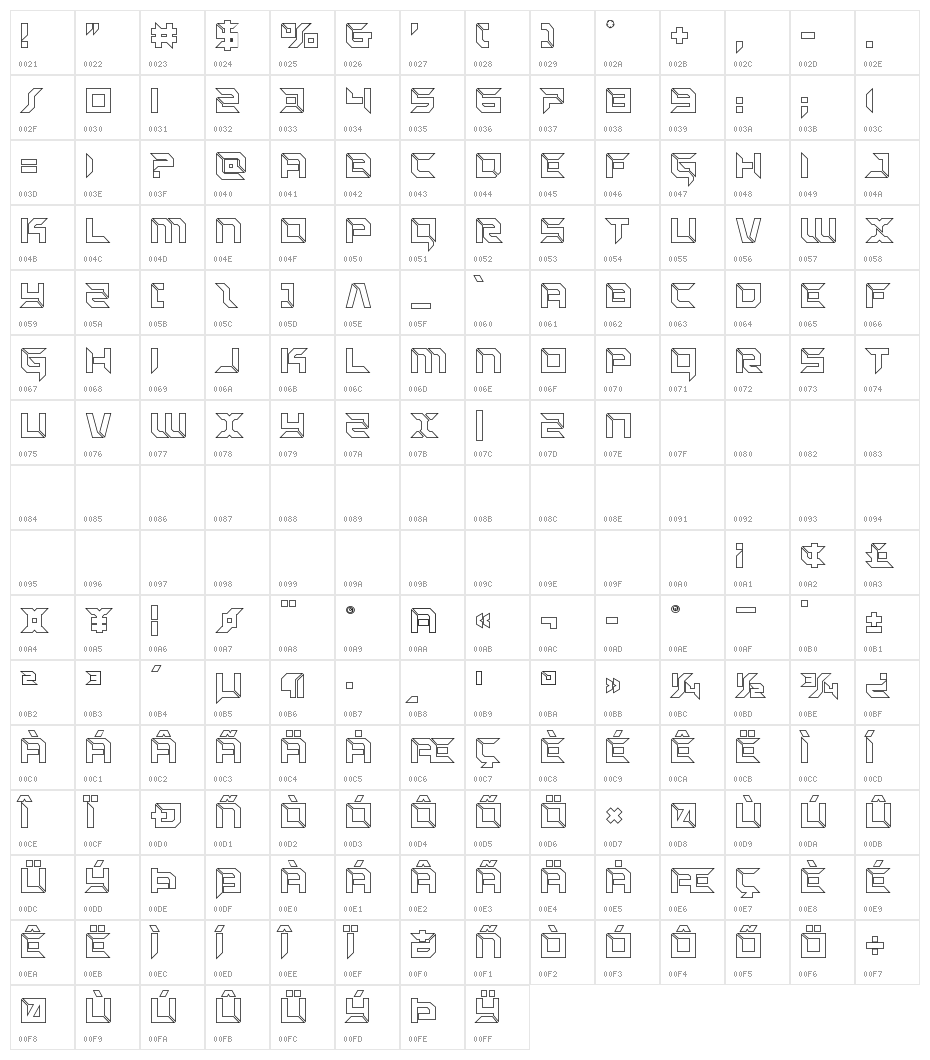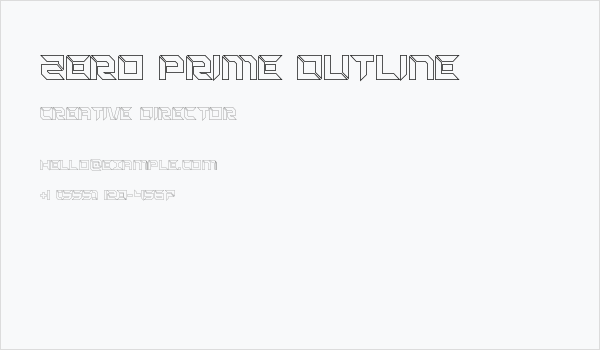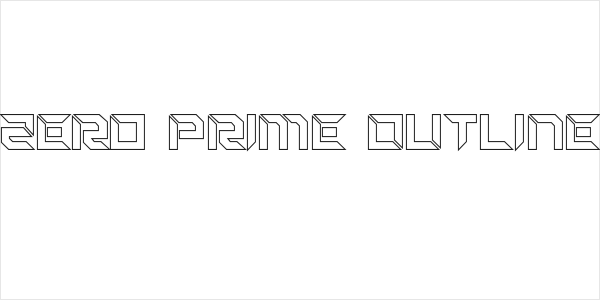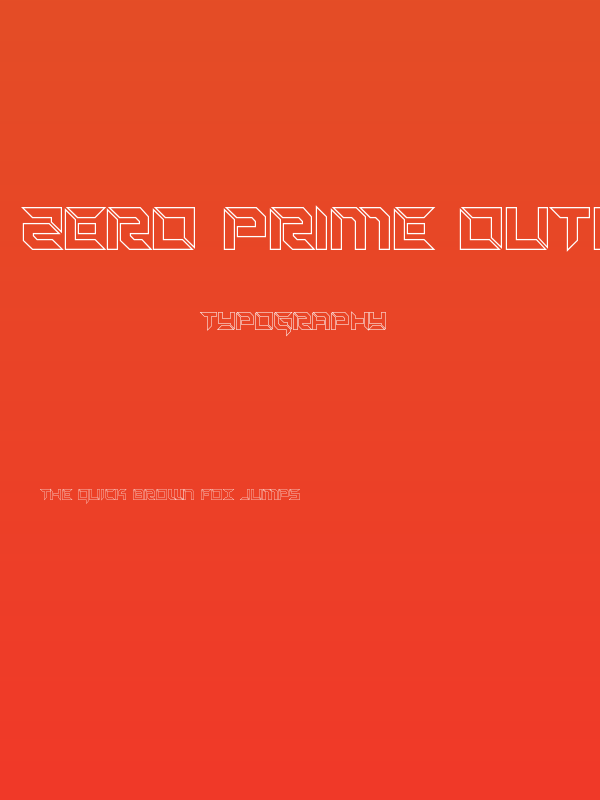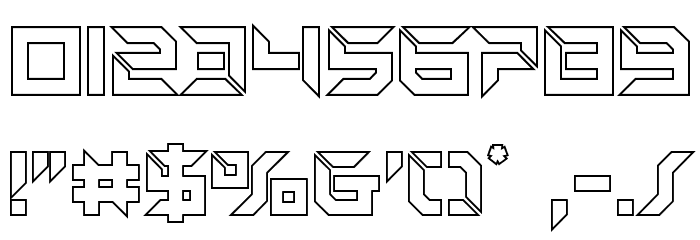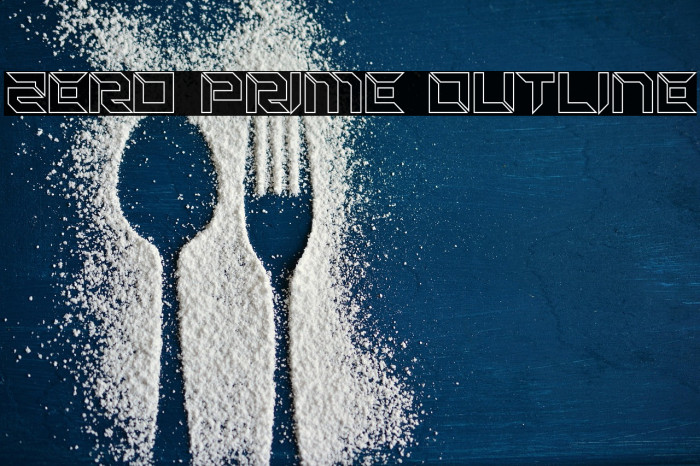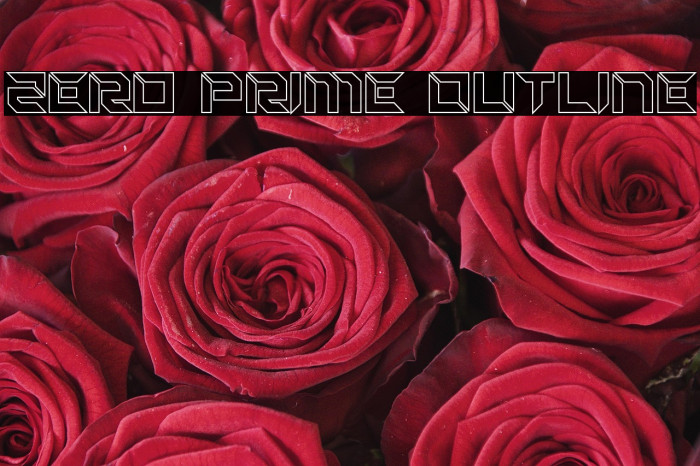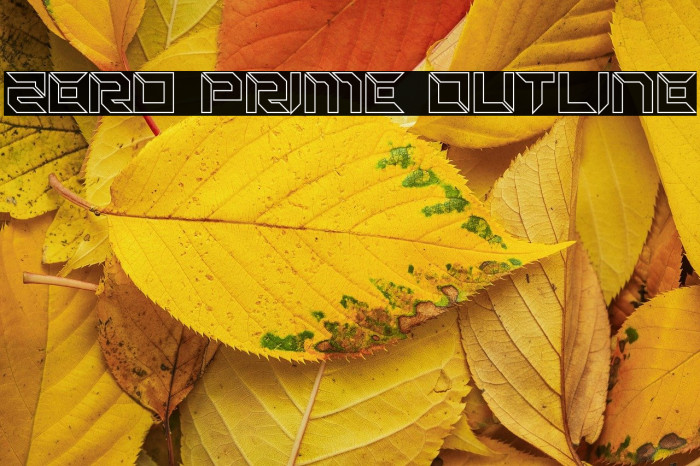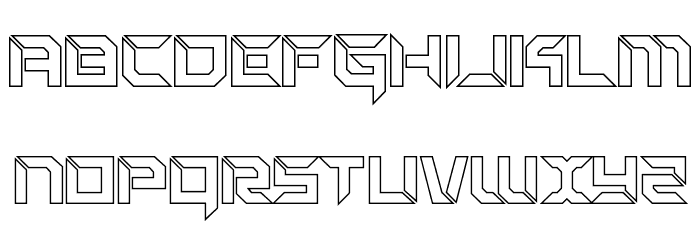
Zero Prime Outline Font
Zero Prime Outline Description
This font features a futuristic, geometric design with an outline style that gives it a three-dimensional appearance. Each character is constructed with sharp angles and straight lines, creating a sense of depth and modernity. The uppercase and lowercase letters maintain a consistent style, with the lowercase mirroring the uppercase in form. The numerals and special characters are designed to match the angular, outlined aesthetic, ensuring uniformity across all glyphs. This font is ideal for projects that require a bold, eye-catching look with a modern twist.